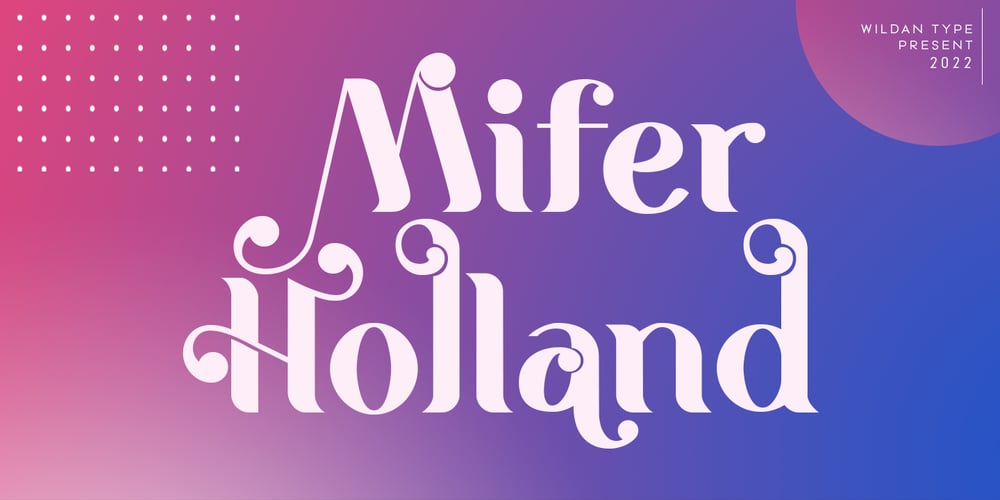
Mifer Holland Font Family was designed by Wildan Carbon and published by Wildan Type. Mifer Holland contains 2 styles and family package options. Introduction New Font!Mifer Holland- A new font that we created special for branding needs, with unique characters and awesome alternative characters are ready to add value of your brand. It so nice to leverage designer or product owner that need solutions to make their design look more beauty and modern. And specially for Mifer Holland font, We prepared any ligature and any alternate characters to help you create unlimited variations for your creative needs.